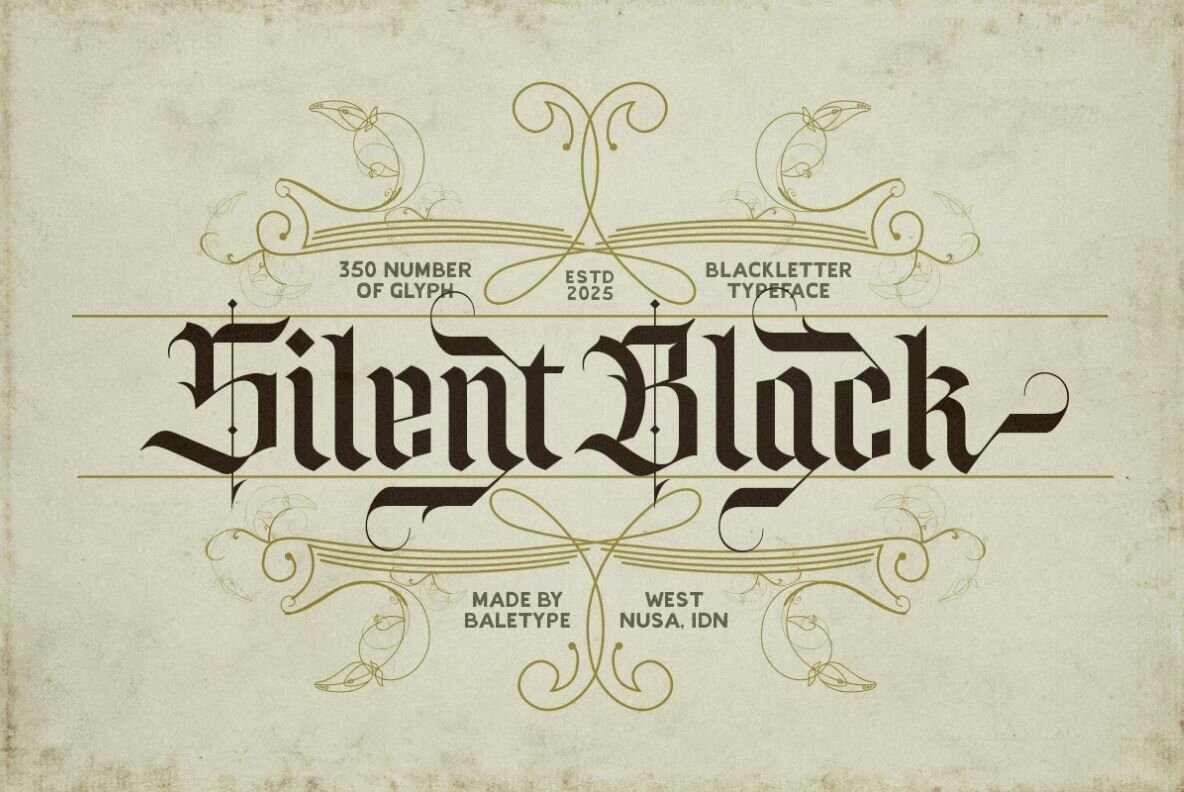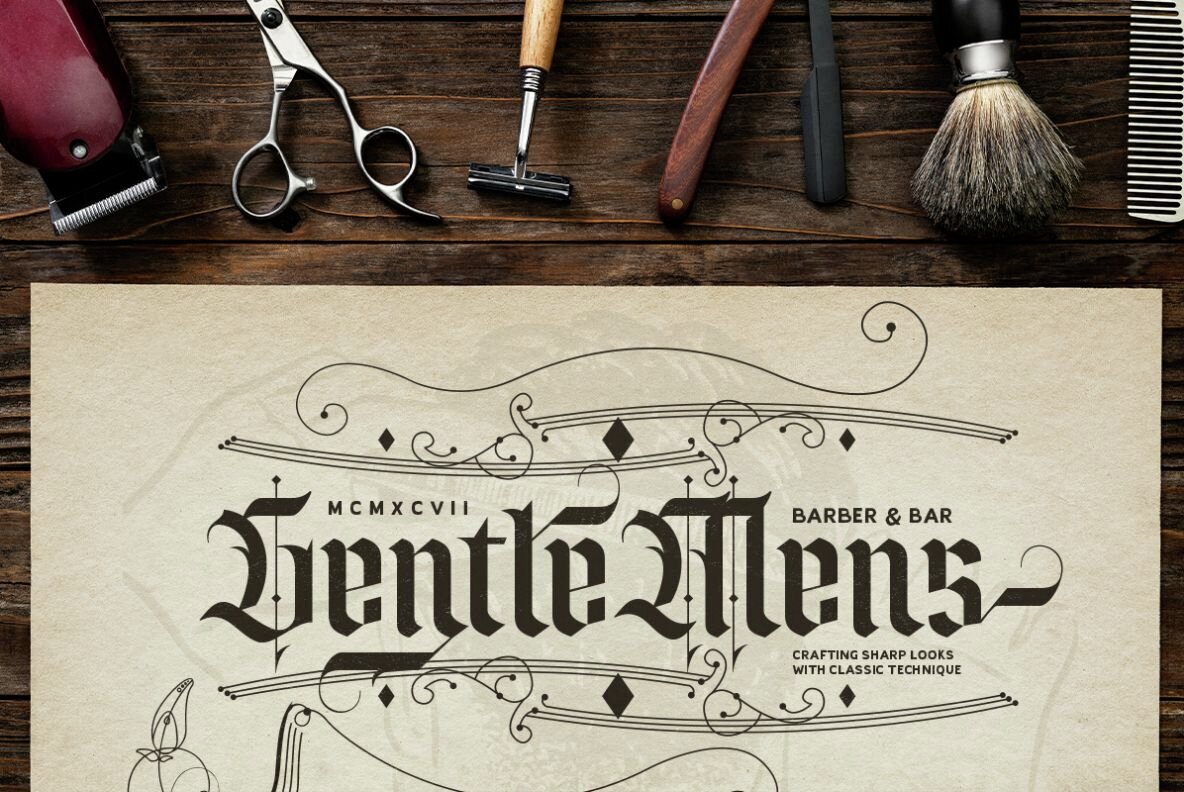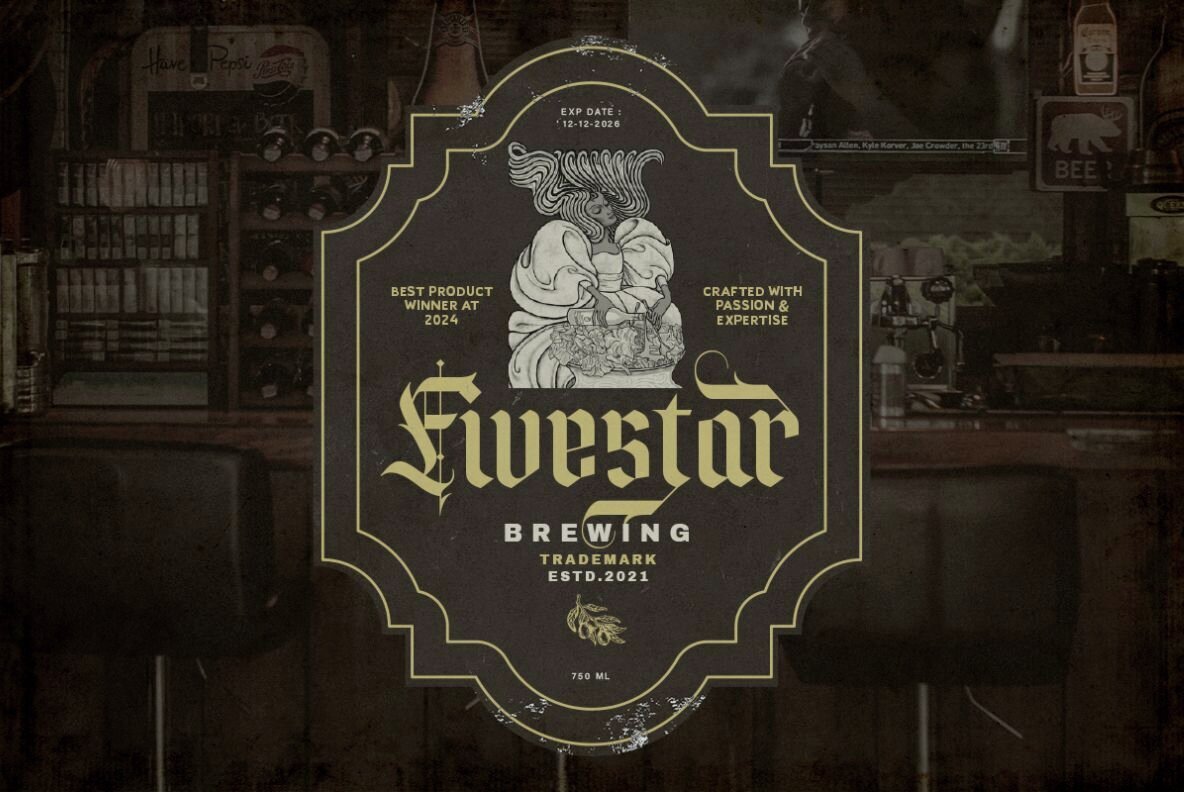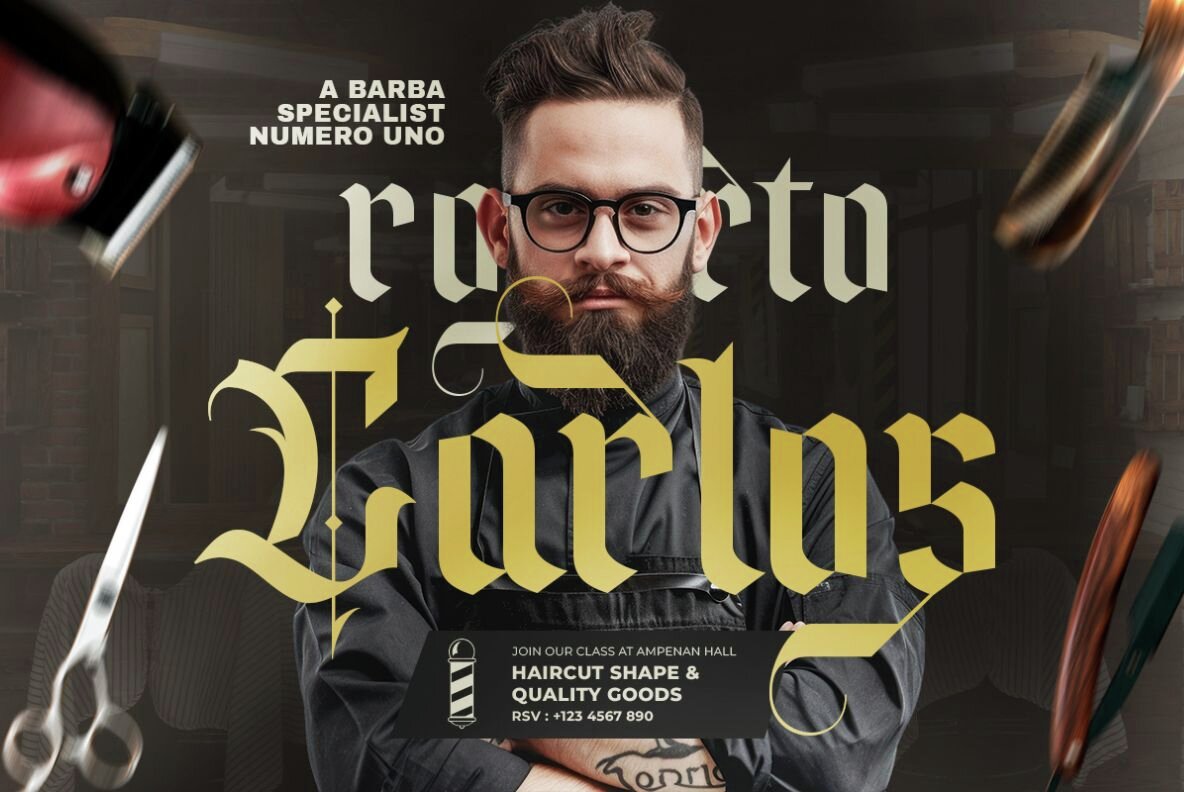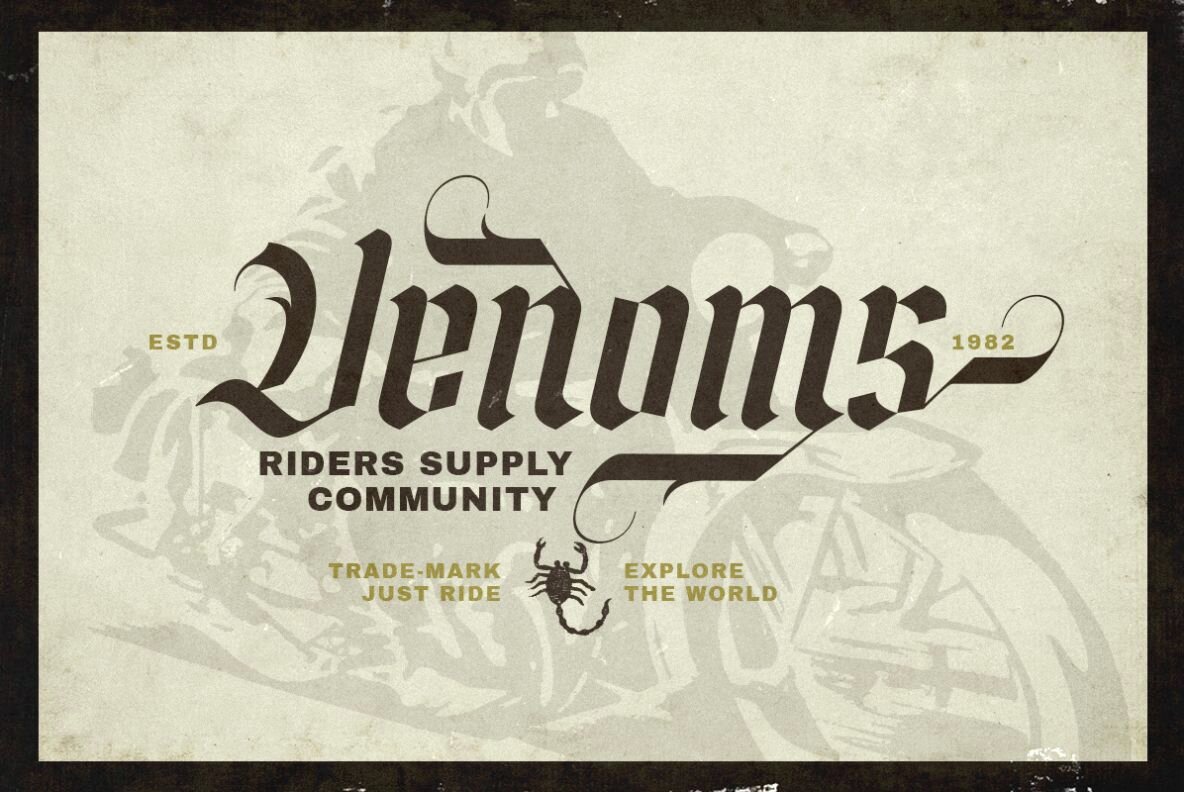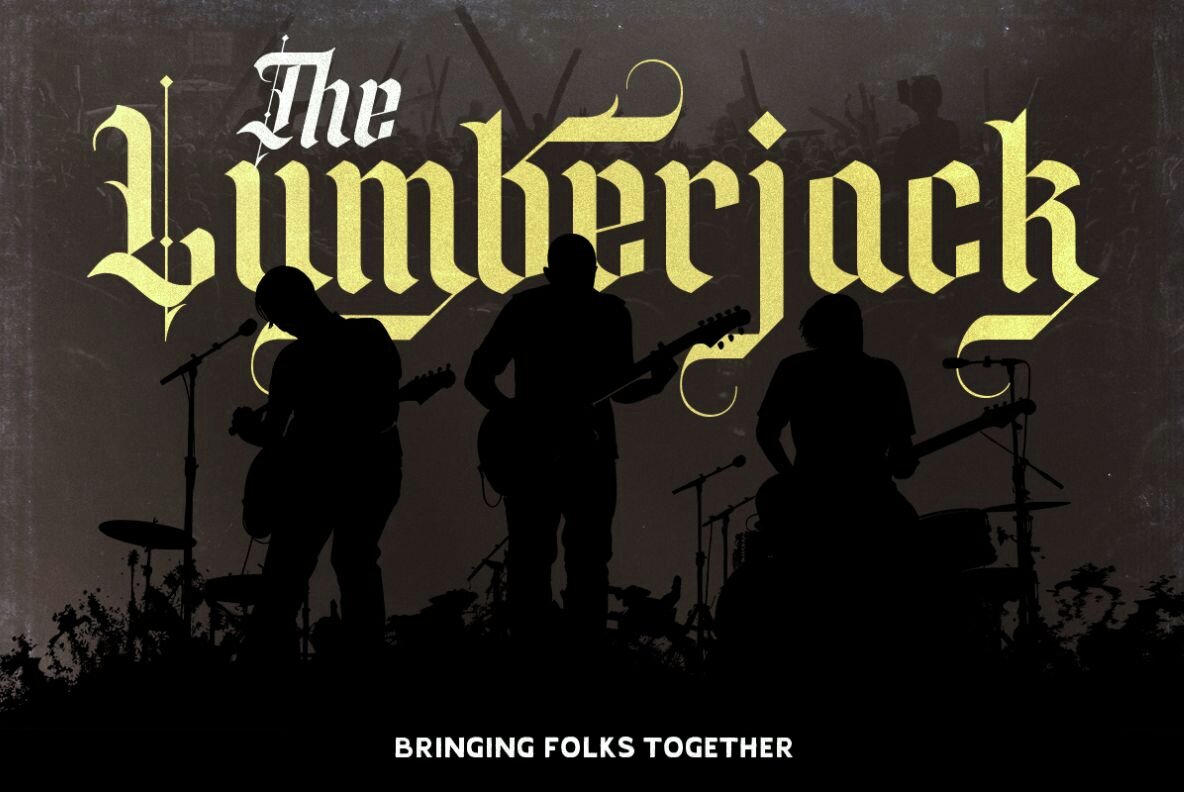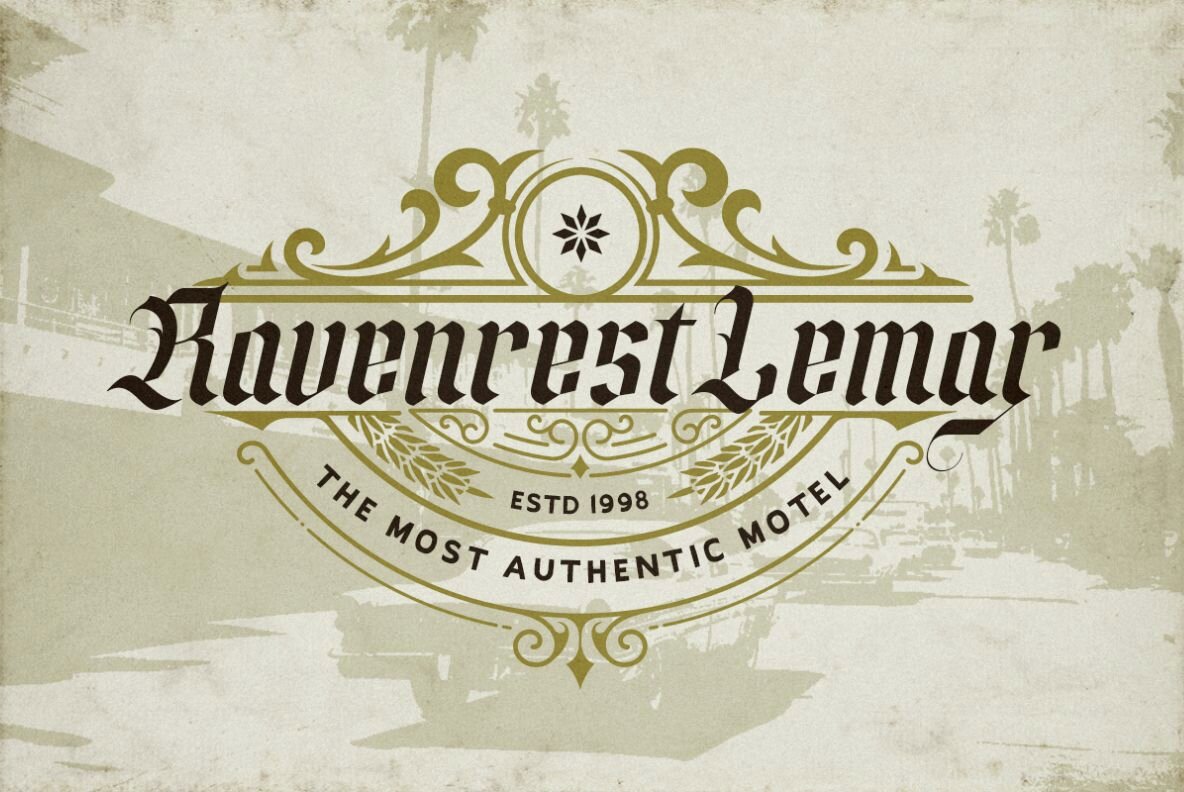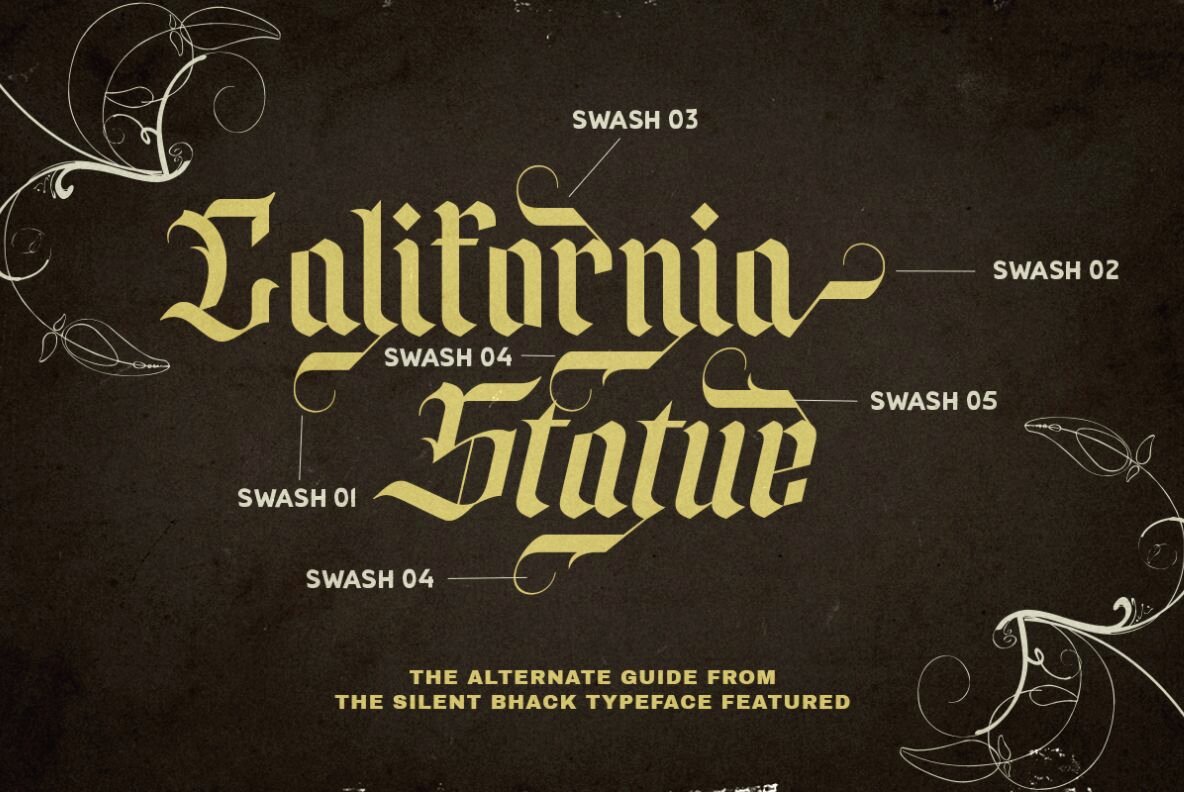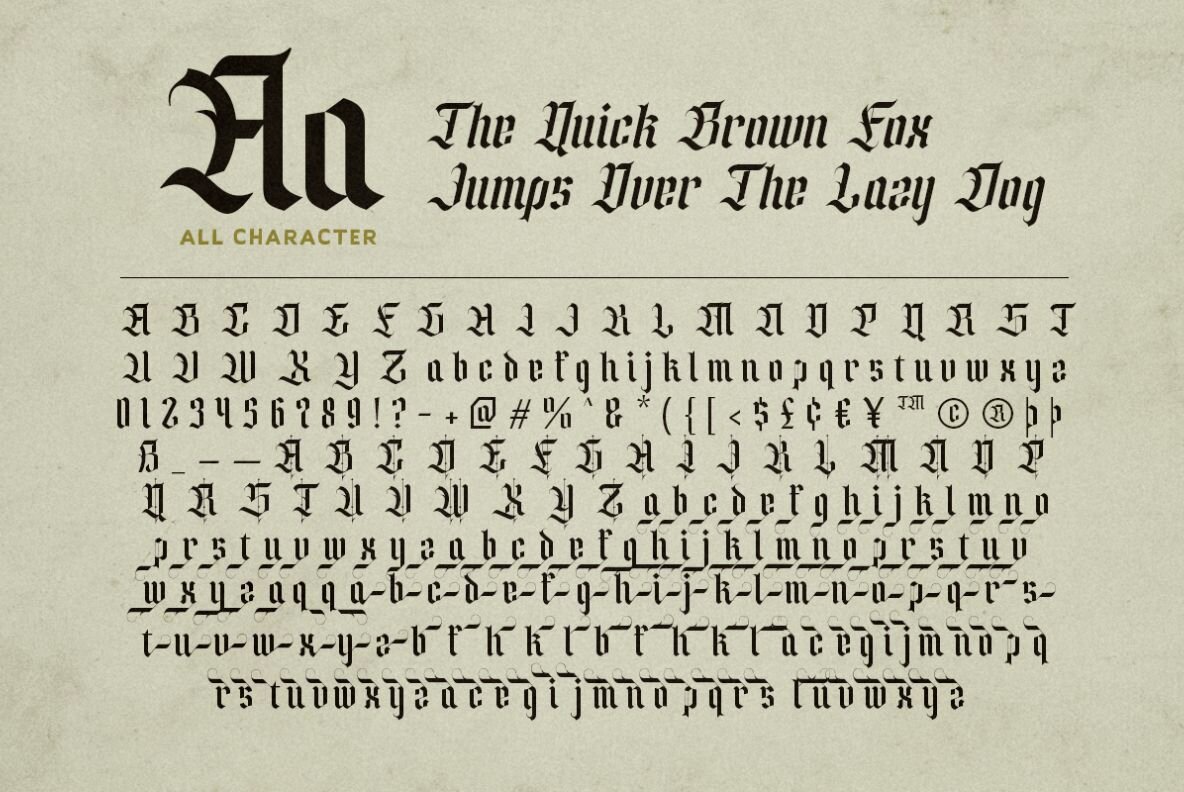
Silent Black Font
Silent Black is a sophisticated blackletter font designed to elevate your graphic designs with its unique character and versatility. Featuring a plethora of stylistic alternates, Silent Black allows you to craft eye-catching logotypes and projects with ease. Its elegant structure transforms simple visuals into stunning graphic displays.Silent Black: Stylish Blackletter Font